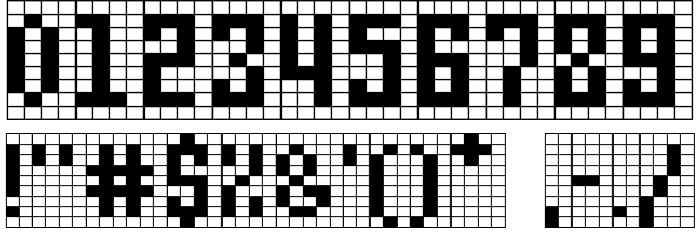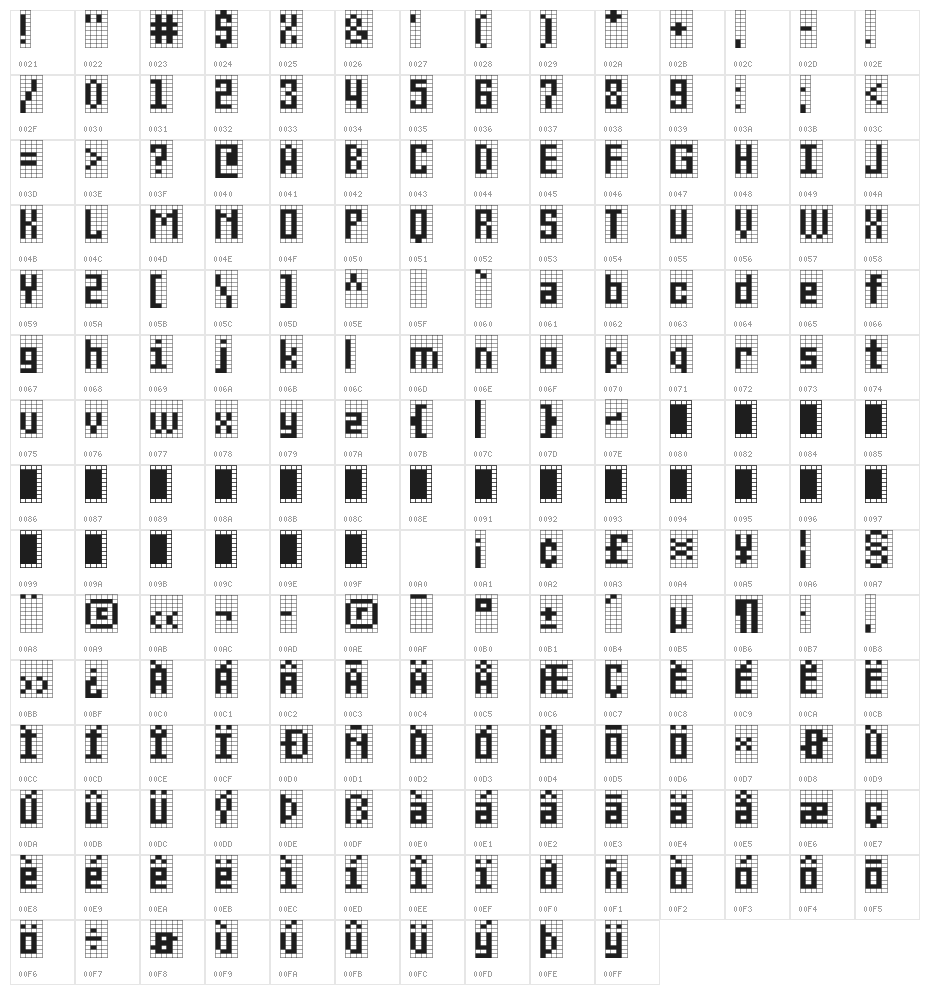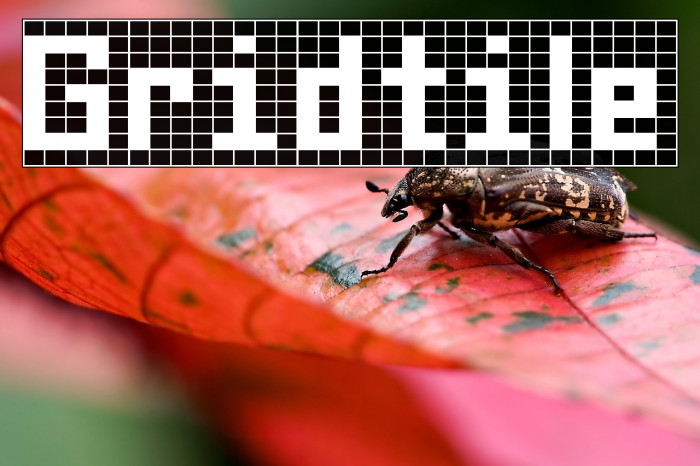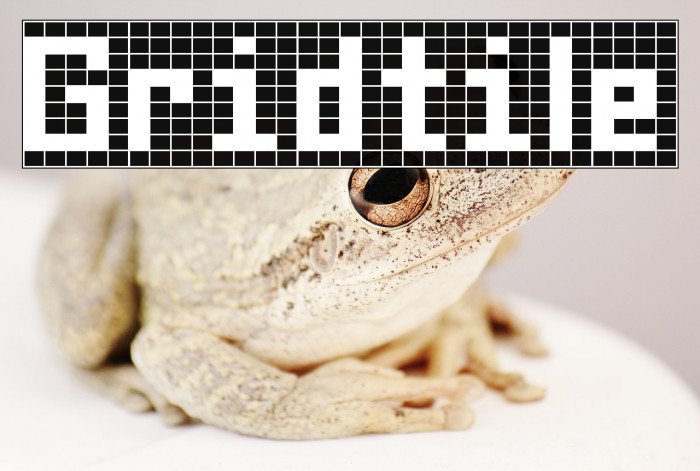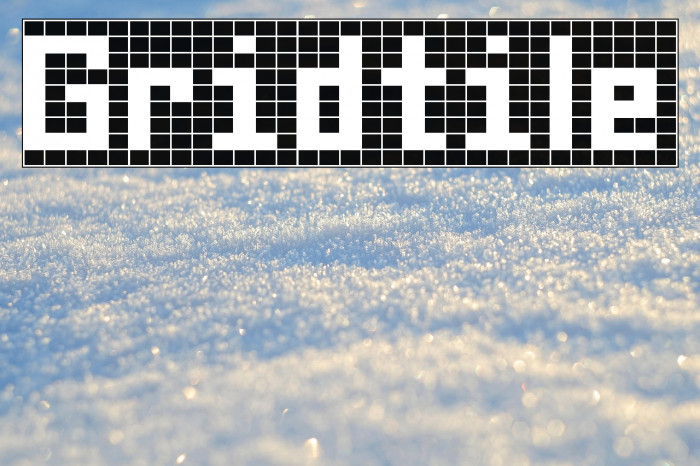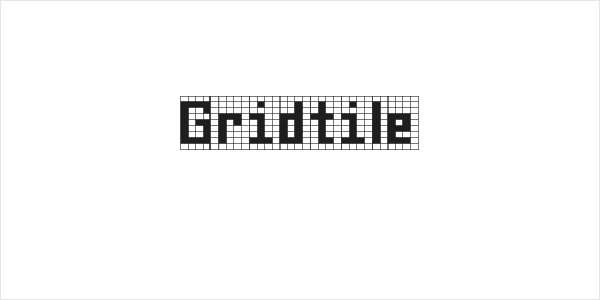
Gridtile Font
Gridtile Description
This font features a pixelated, grid-based design reminiscent of early digital displays or video games. Each character is constructed from a grid of squares, giving it a blocky and geometric appearance. The uniformity in the grid layout ensures consistent character height and width, providing a cohesive look across all letters and symbols. The font is highly legible due to its bold and straightforward design, making it suitable for digital or retro-themed projects. The characters are evenly spaced, and the lack of curves or intricate details emphasizes its digital aesthetic.
A pixelated, grid-based font with a retro digital aesthetic from Uncategorized fonts.
- Proposed Projects: Ideal for retro video games, digital art projects, tech-themed posters, or any design requiring a nostalgic digital look.
- Overall Style: Retro, Digital
- Use Case: Headlines, Logos, Digital displays